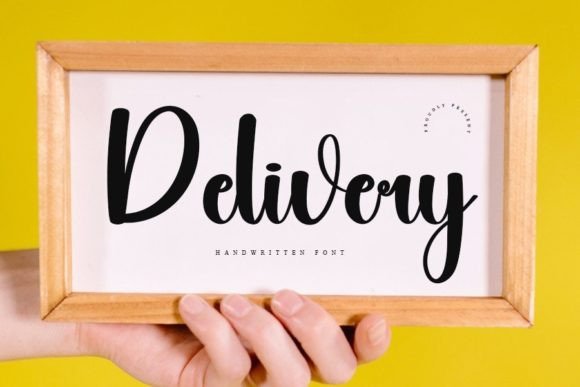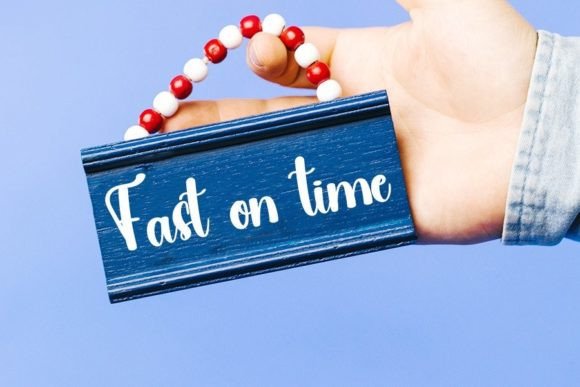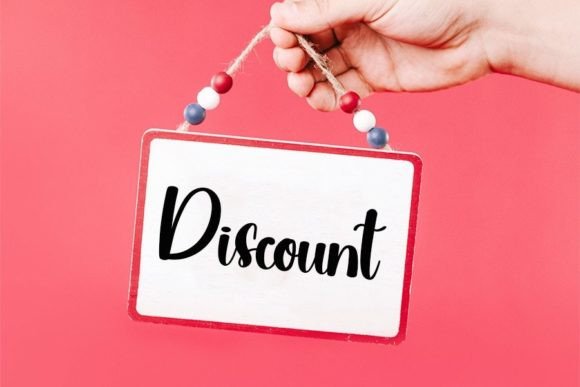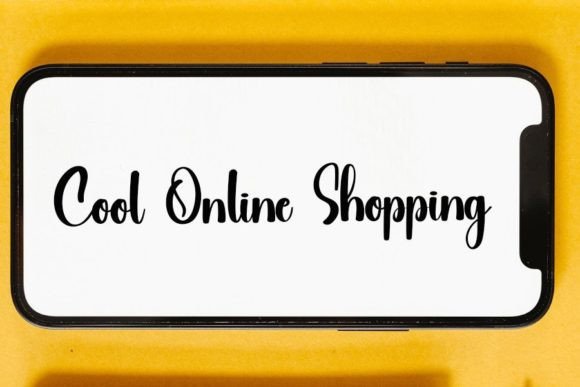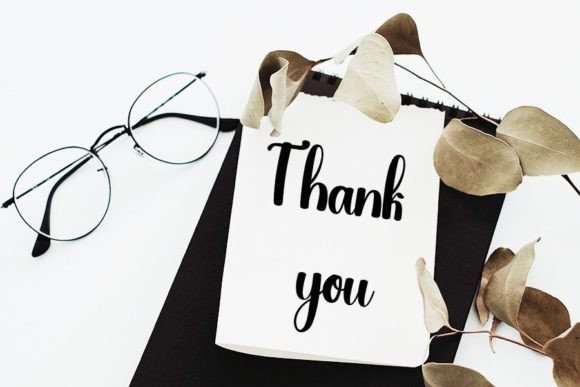
Delivery Font
About Delivery Font
“Delivery” is not just a font; it’s a luxurious handwritten typeface designed to bring an elegant touch to your favorite projects. With its distinctive and timeless style, this font is perfect for creating designs that exude luxury and sophistication.
Imagine “Delivery” adding its luxurious flair to your projects, enhancing the beauty of your designs with an elegant touch. Let it be the font that elevates your creations, making them stand out with a sense of opulence and refinement.
Envision “Delivery” becoming a staple font in your collection, allowing you to effortlessly create designs that radiate luxury. The font’s timeless handwritten style makes it a fantastic choice for projects that demand a touch of elegance and class.
For designs that require a font with a luxurious and elegant aesthetic, “Delivery” stands out as a typeface that brings a refined and distinct character. Its handwritten elegance offers a sophisticated way to convey a sense of opulence.
In any context where you want to evoke a feeling of luxury through typography, “Delivery” is the font that adds an elegant touch. Let it be the key element that transforms your projects into spectacular expressions of sophistication and style.
Whether you’re working on digital or print designs, “Delivery” is a font that brings a sense of luxury to your letters. Let it be the font that adds an elegant and timeless touch to your logos, branding, invitations, and various other design projects.
Let “Delivery” be the font that infuses your designs with a luxurious and sophisticated vibe, turning them into expressions of refined creativity. Embrace its distinct and timeless style, and watch it bring a new level of elegance to your design endeavors.